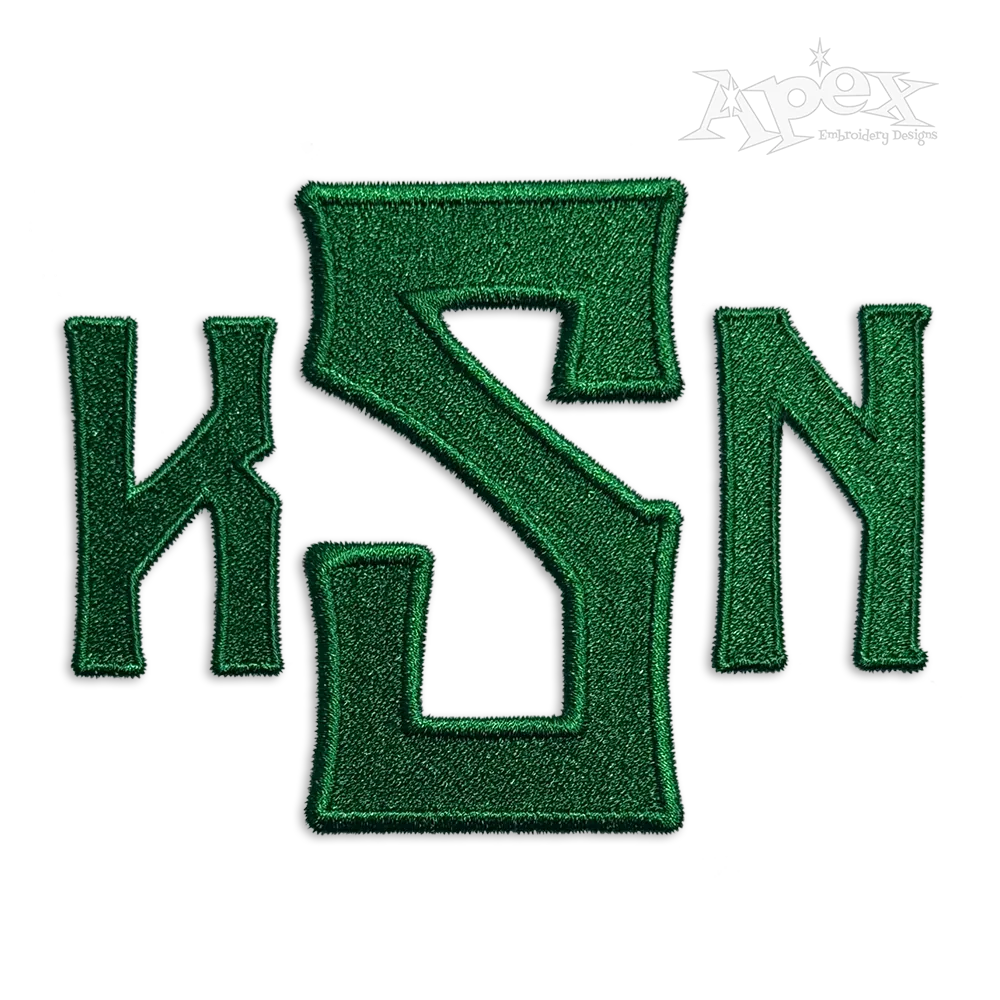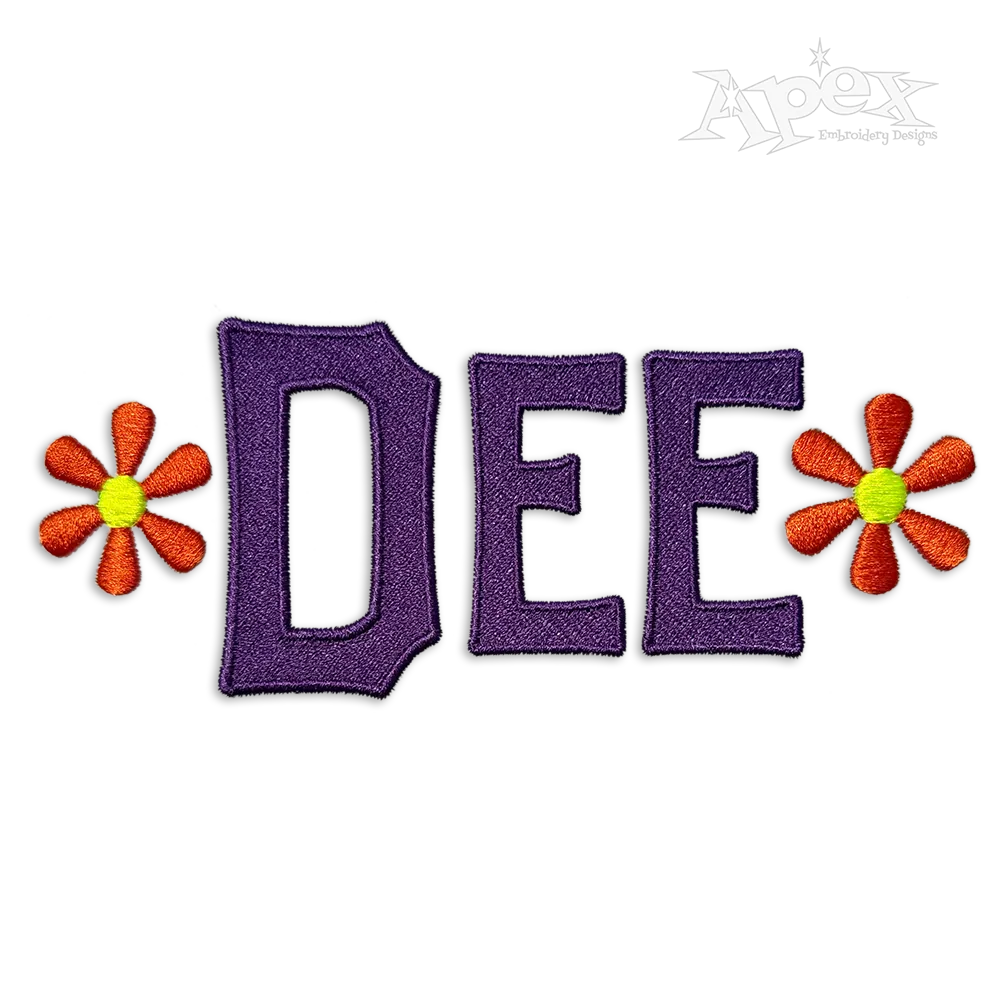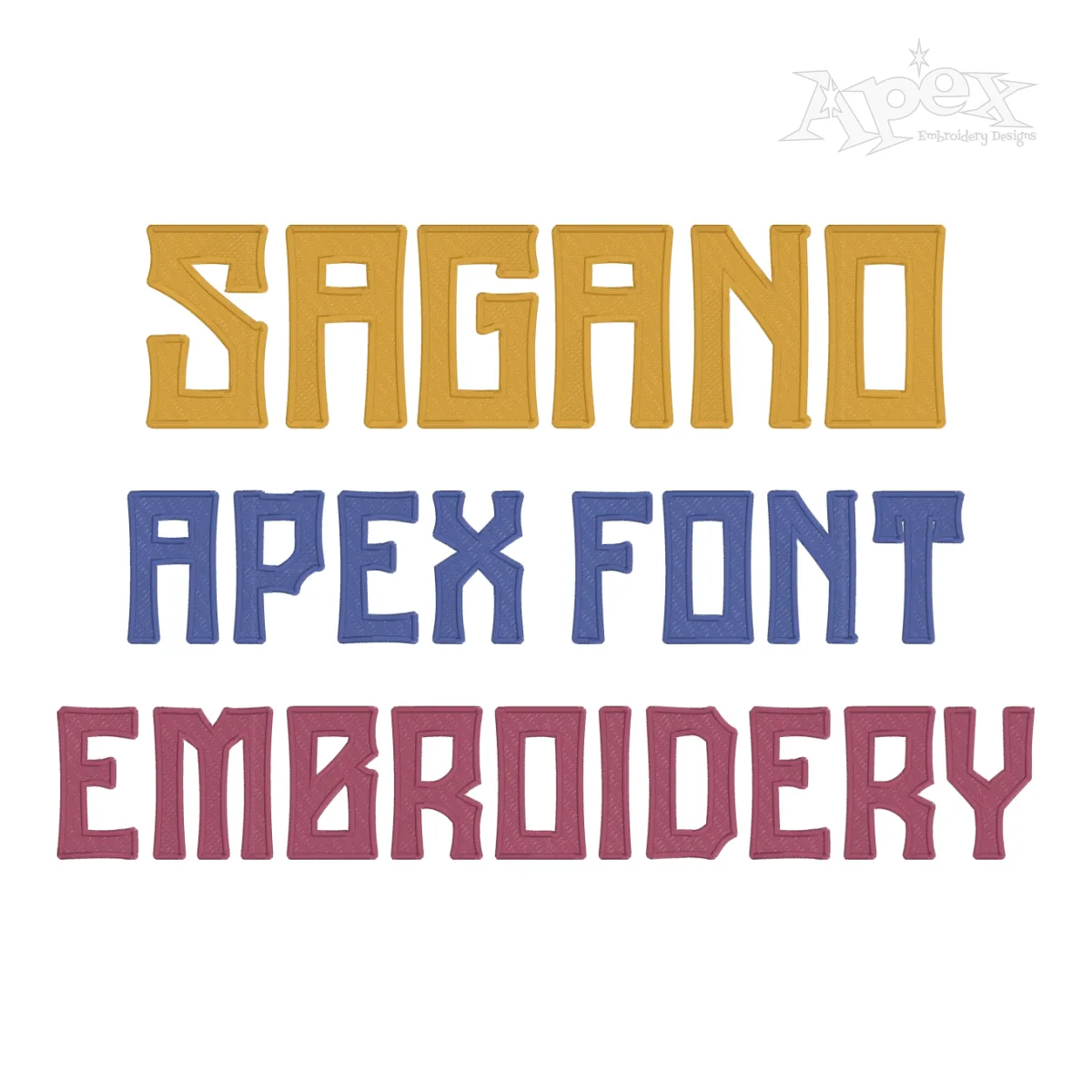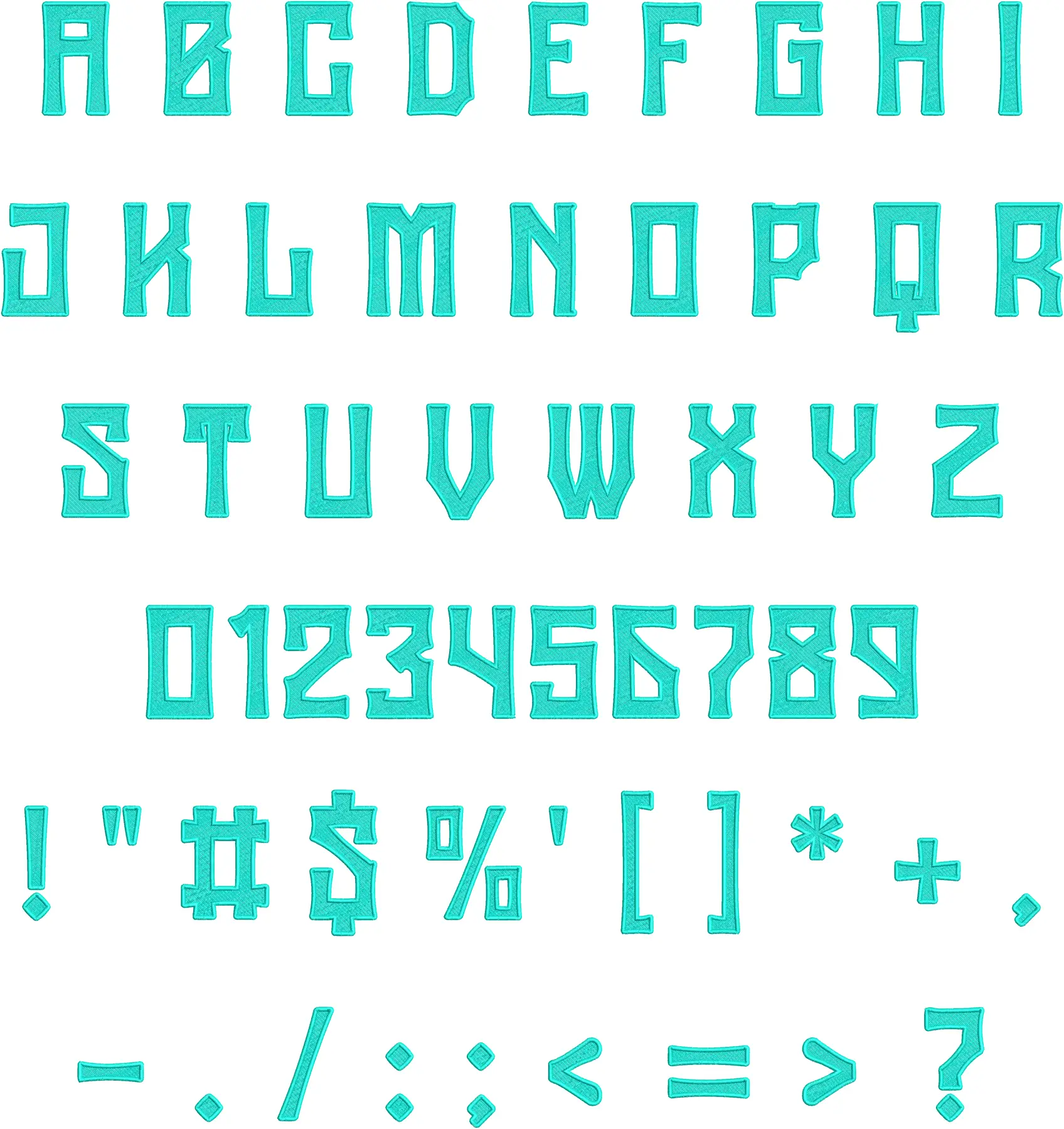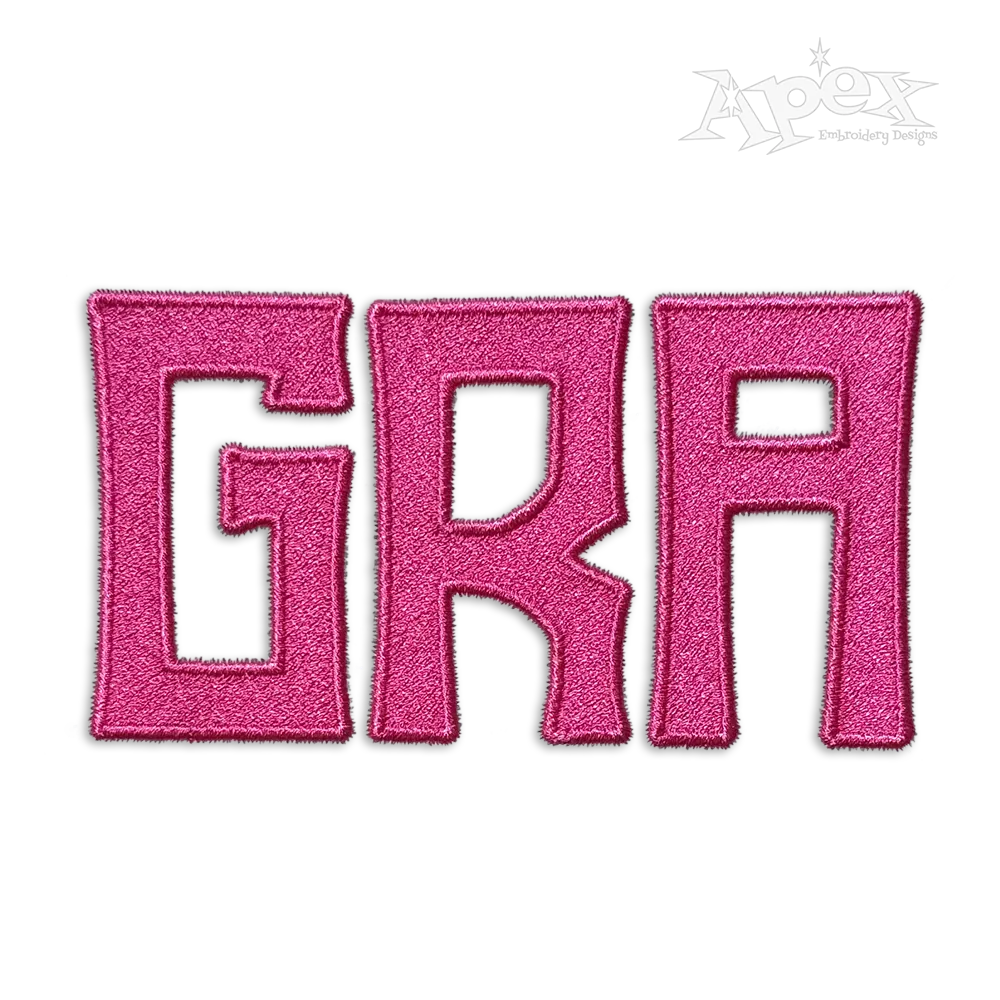
Sagano Grove Embroidery Font
Conceived with the whispering grace of bamboo canopies and the quiet balance of organic architecture, the Sagano Grove Embroidery Font brings an understated, modern serenity to bespoke monogramming. Each letterform is sculpted with clean vertical poise and subtly flared terminals, balancing contemporary minimalism with the timeless dignity of classical script. Digitized to catch the ambient light across every curve, this font breathes tactile elegance into personalized stitchwork, elevating humble fabric into an artful, heirloom statement.
Sagano Grove is thoughtfully scaled to provide pristine clarity across small personal details and grand, statement-making focal monograms:
Project Ideas for Sagano Grove
The poised, rhythmic geometry of Sagano Grove lends itself effortlessly to refined, high-end gifting and home decor:
- Bespoke Table Linens: Stitch singular initials onto crisp Irish linen dinner napkins and textured table runners for botanical, design-forward tablescapes.
- Heirloom Bedding: Create stately central monograms on crisp percale duvet flanges, waffle-weave blankets, and European pillow shams.
- Bespoke Resort & Loungewear: Transform silk kimono robes, linen dusters, and lightweight resort wear with sweeping, elongated letterforms.
- Artisan Canvas & Leather Gifting: Personalize structured canvas market totes, weekender duffels, and bridal party cosmetics pouches with tailored precision.
Achieving harmony in embroidery relies on respecting both the garment's lines and the alphabet's distinct proportions:
- Corner Diagonals: For table linens and handkerchiefs, orient letters at a 45-degree angle set 1.5 to 2 inches from the folded hem for a balanced, classic finish.
- Center Chest: Place the 3-inch or 4-inch scale centered 7 to 9 inches down from the shoulder seam on loungewear, jackets, or robes to highlight the font's vertical architecture.
- Flange & Pillow Centers: Let the 5-inch capital sit dead-center in decorative throw pillow covers, ensuring generous breathing room between the satin contours and seam borders.
- Cuffs & Collar Flaps: Use the 2-inch glyphs offset along shirt cuffs or tailored pocket rims for an understated whisper of bespoke luxury.
Sagano Grove Craft & Letterform Details
In digitizing Sagano Grove, our focus centered on calibrated density and directionality. Rather than rigid, blocky satin columns, each stroke features gentle angle transitions that mimic the organic flow of hand-drawn calligraphy. The slender stems maintain crisp definition without pulling delicate fabrics inward, anchored by carefully mapped underlay structures that provide loft without unnecessary bulk.
The terminal flourishes taper off with deliberate softness, ensuring seamless thread tie-offs that resist unraveling while remaining virtually invisible to the eye. When stitched with high-sheen rayon or silk-finish polyester, the directional satin stitches create an undulating play of light and shadow, giving each monogram the tactile, sculptured presence that defines true artisan embroidery.